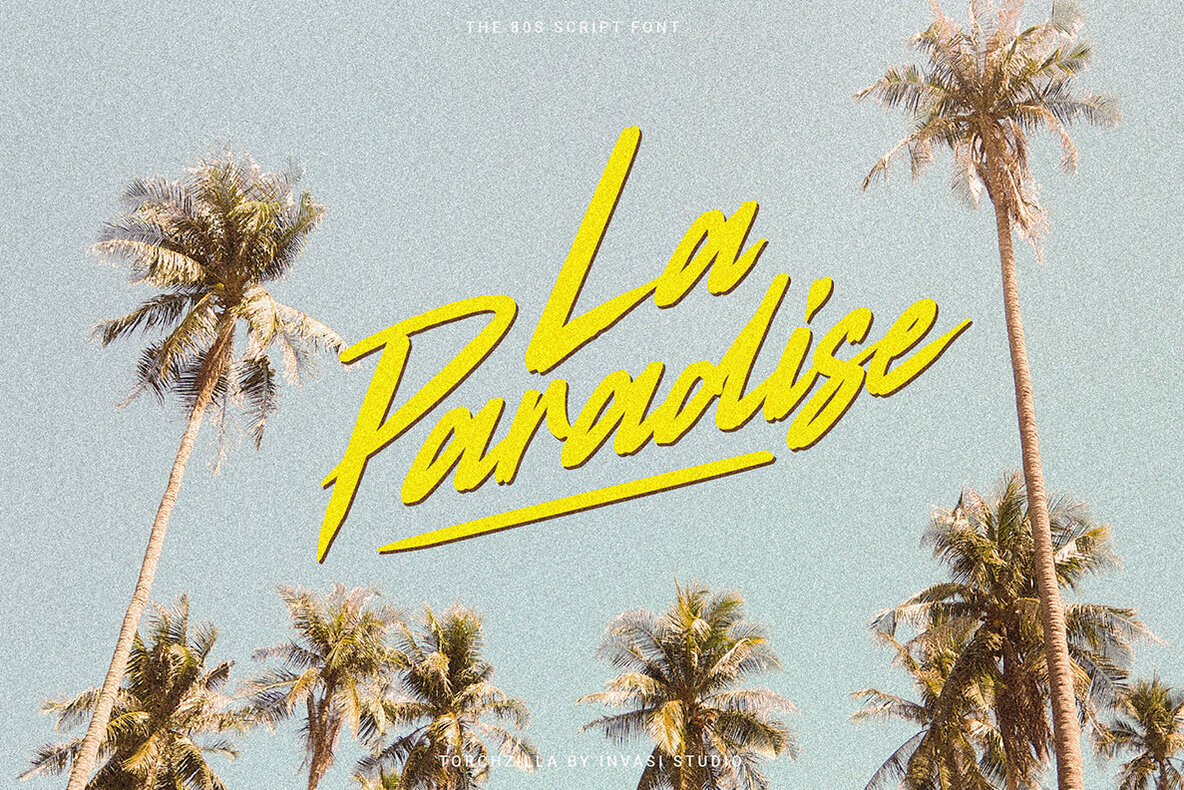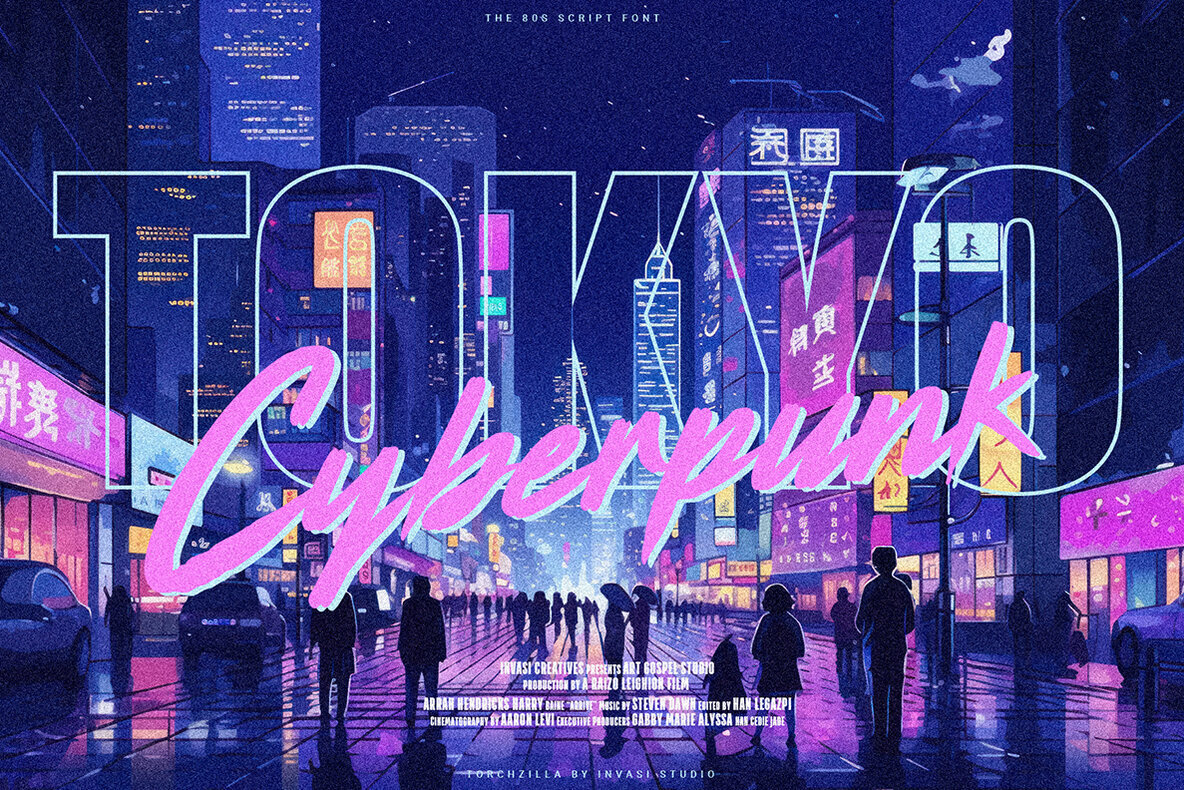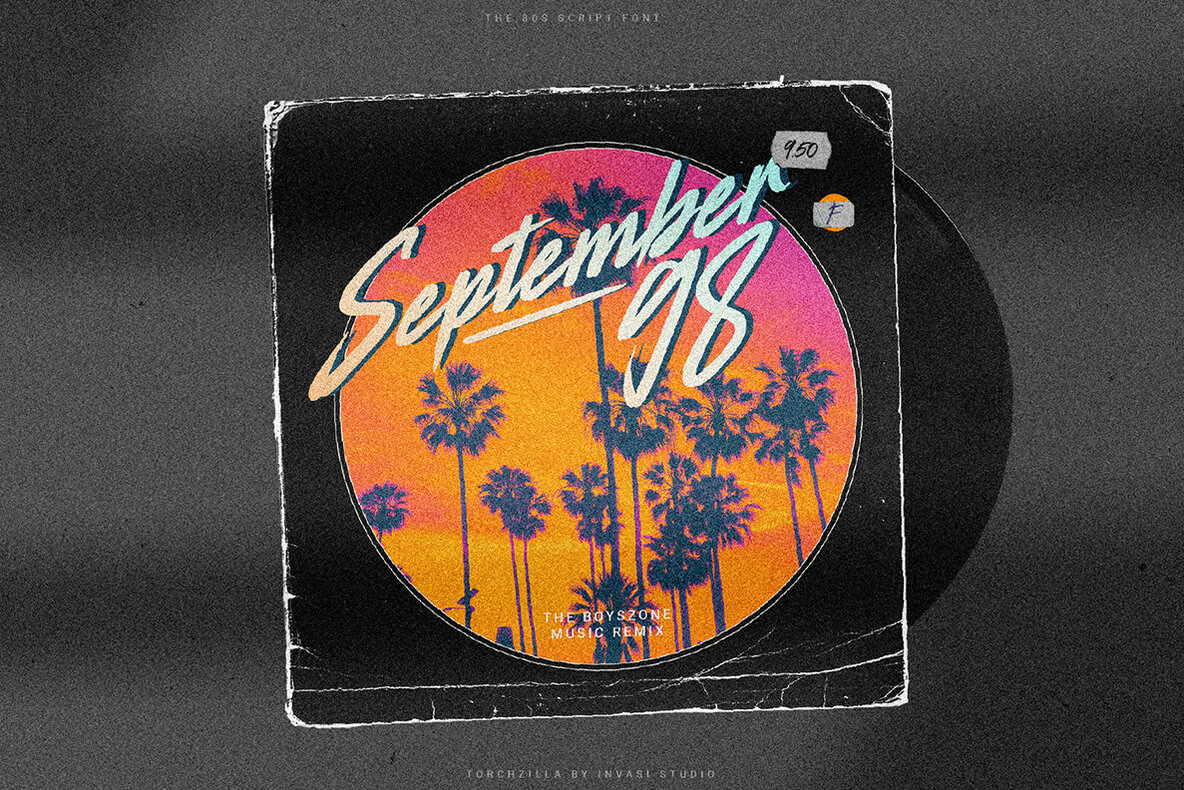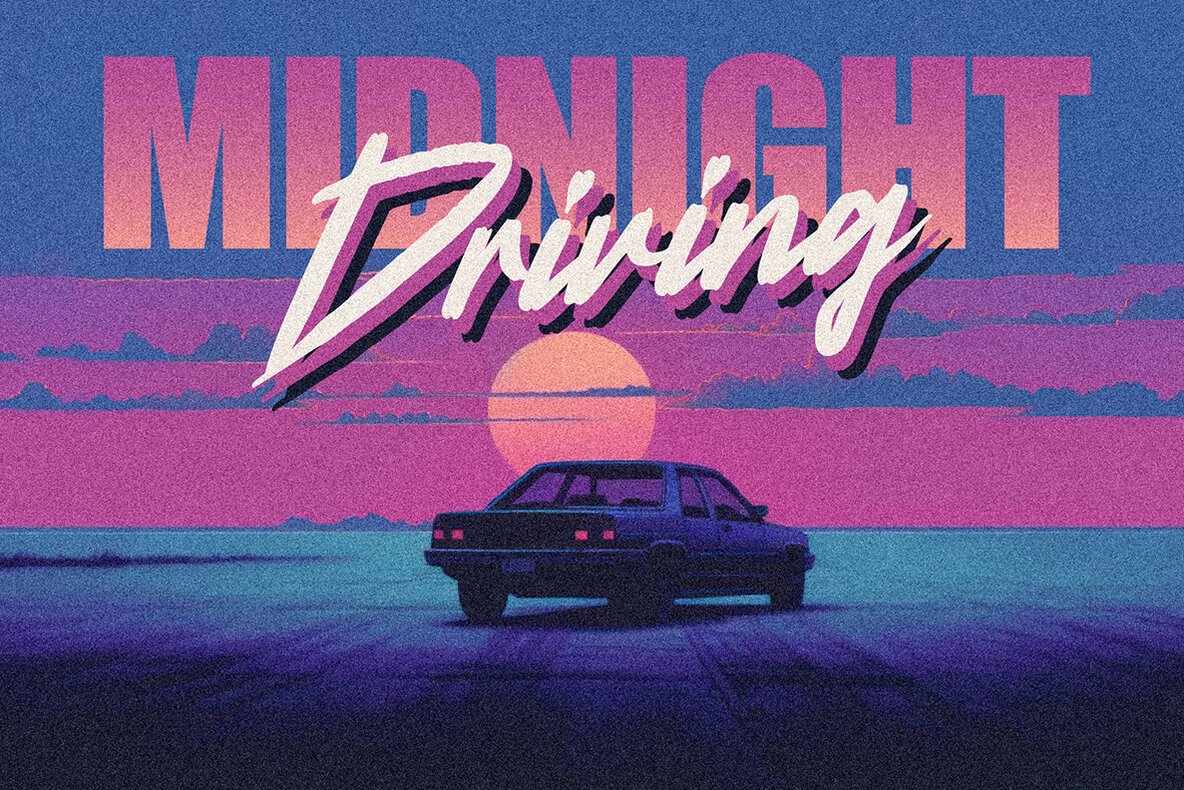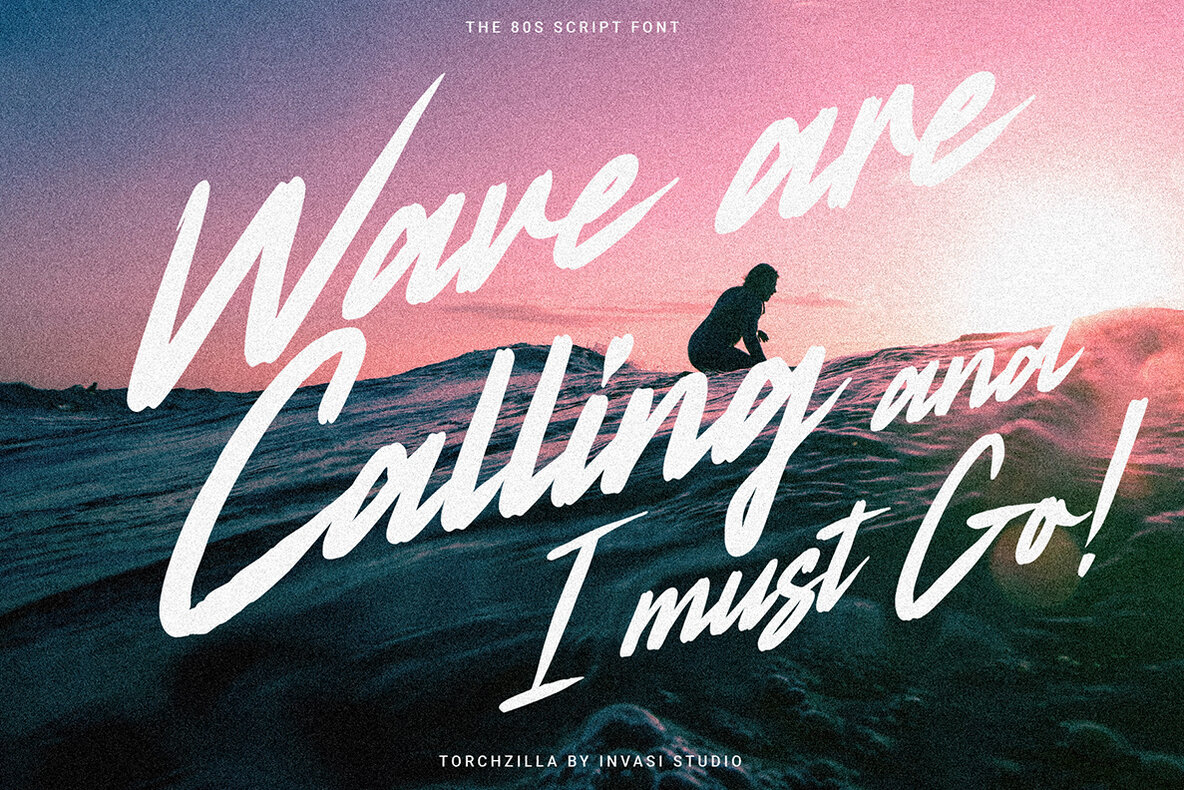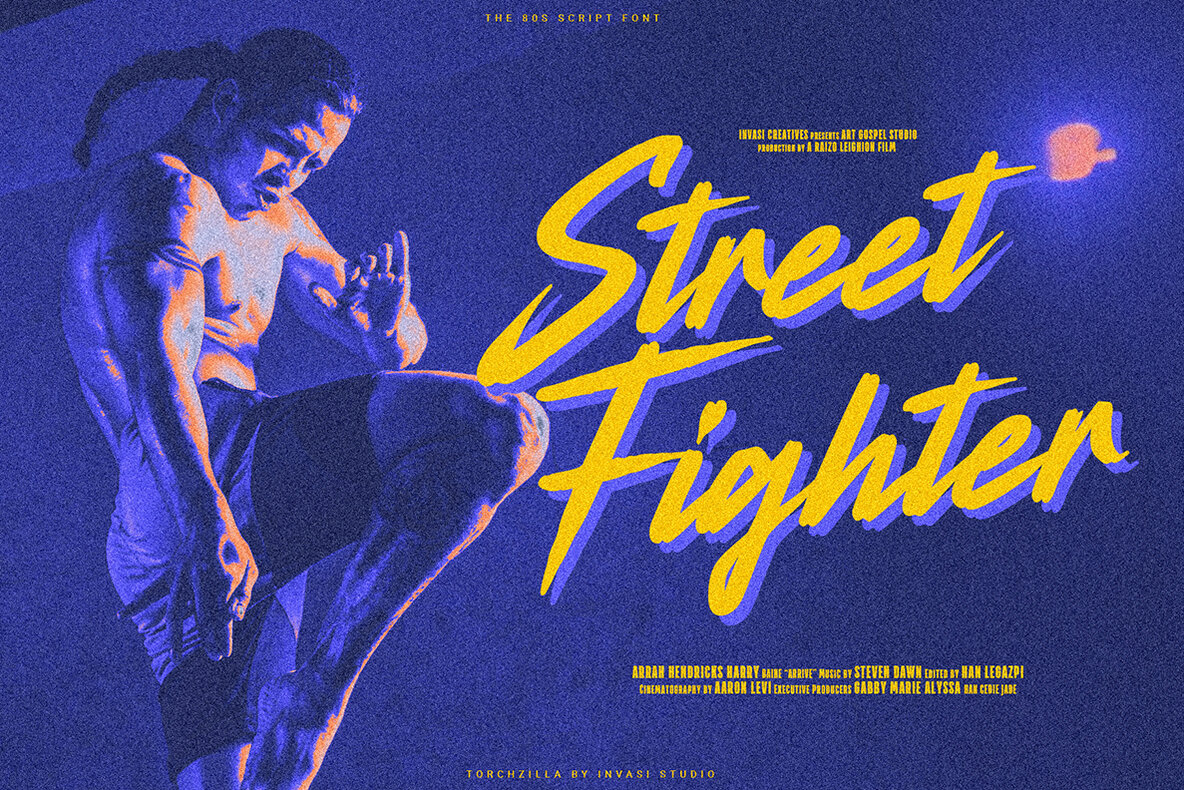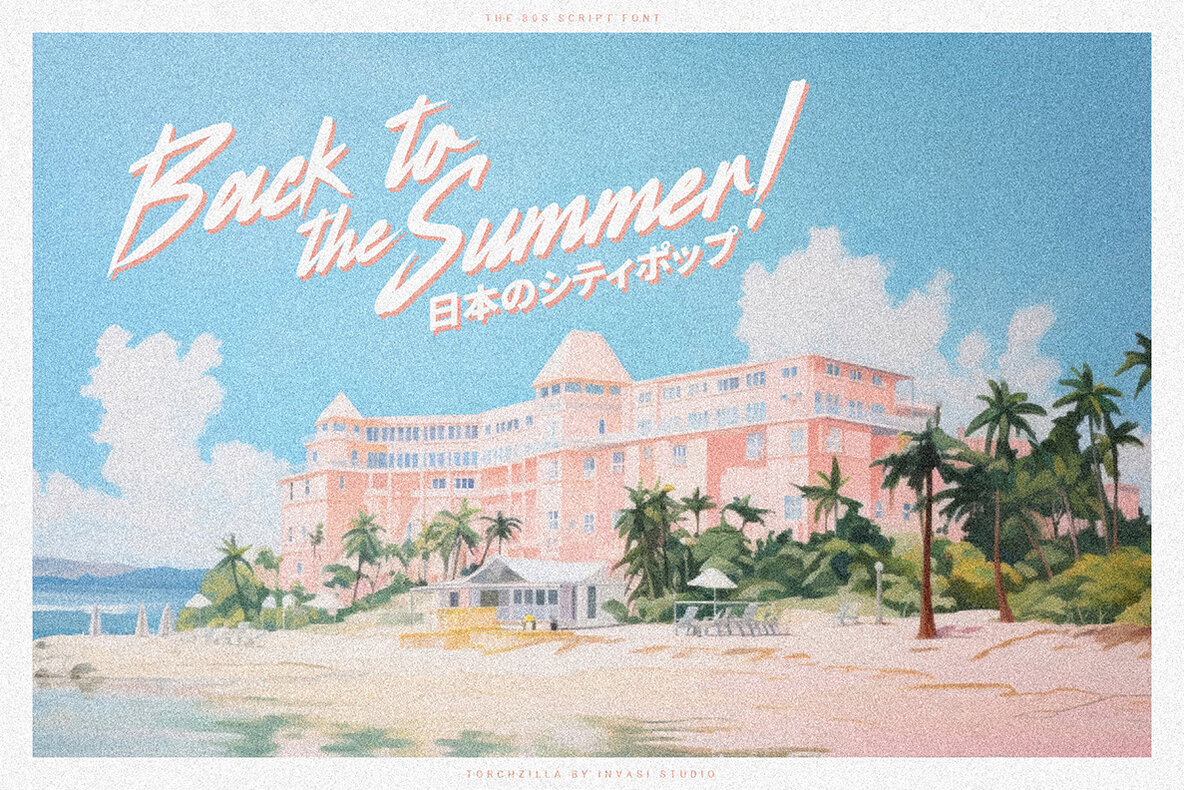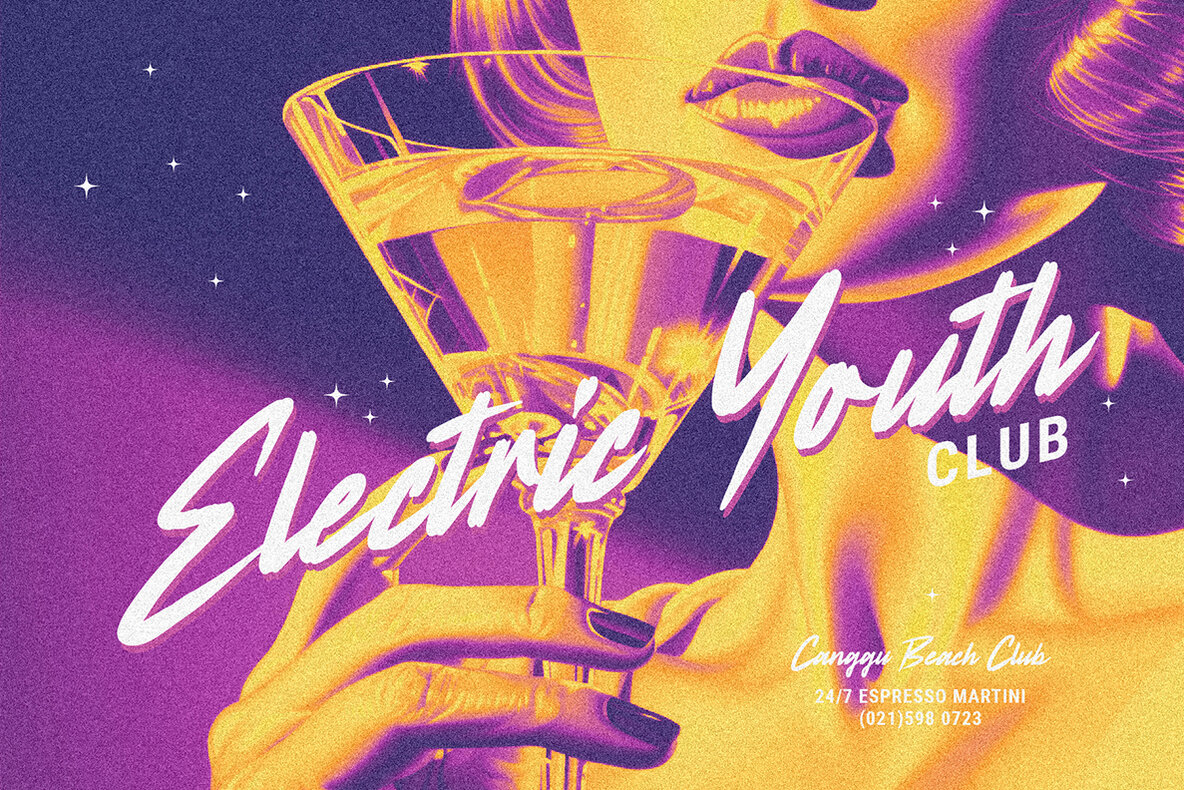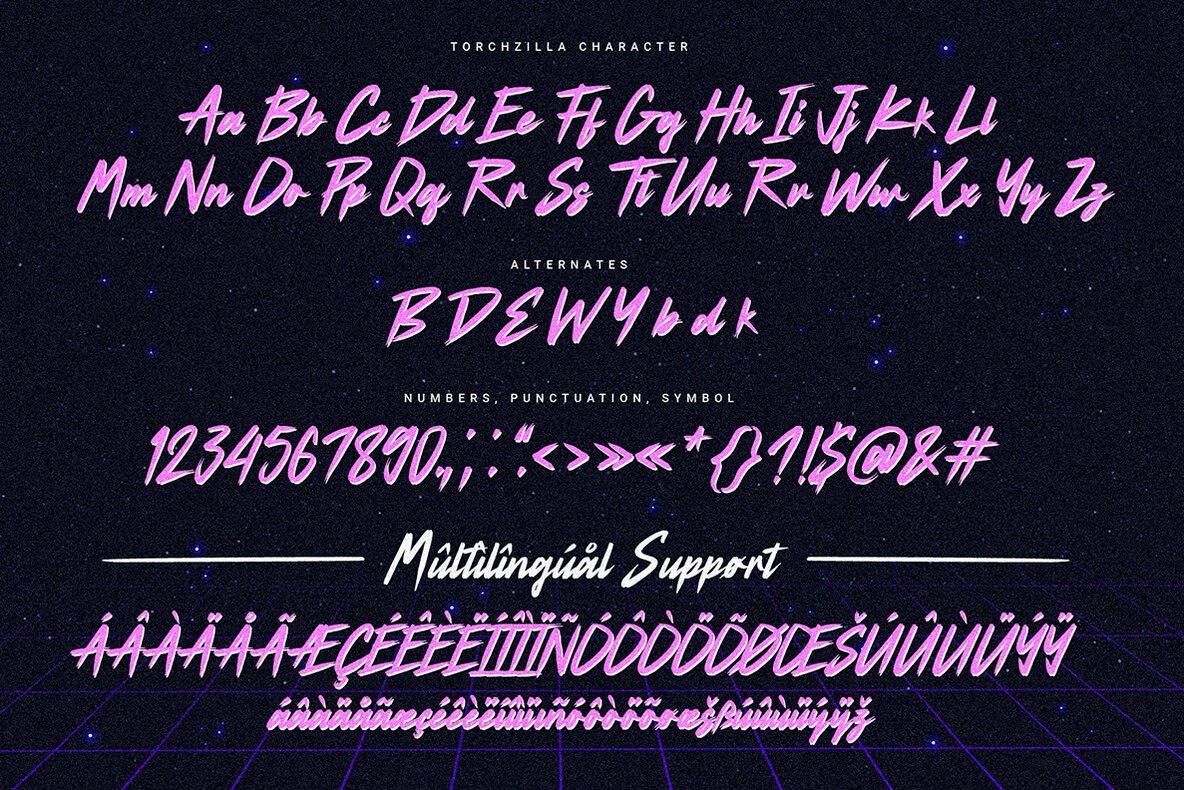
Torchzilla Font
Torchzilla Regular
Step back in time with Torchzilla, a font tailor-made for 80s and 90s aesthetics, perfect for synthwave and vaporwave projects. More than just letters, Torchzilla is a versatile design companion, seamlessly fitting into signature logos, product packaging, and 80s/90s-inspired graphics. With alternates and multilingual features, this font is not just a typographic choice – it's a creative tool that transforms your projects into a nostalgic journey, capturing the retro-fueled energy of the past and engaging audiences with its timeless appeal.